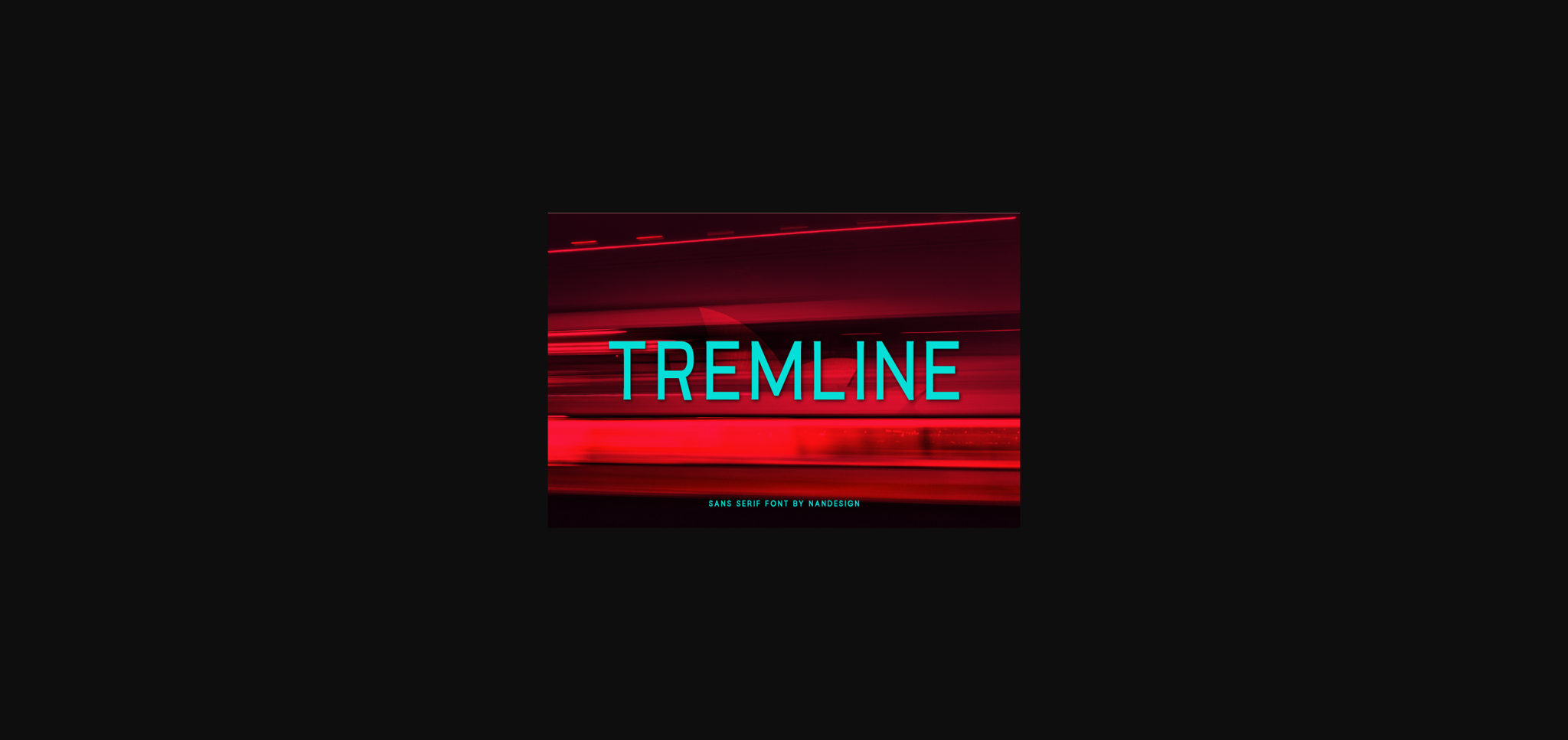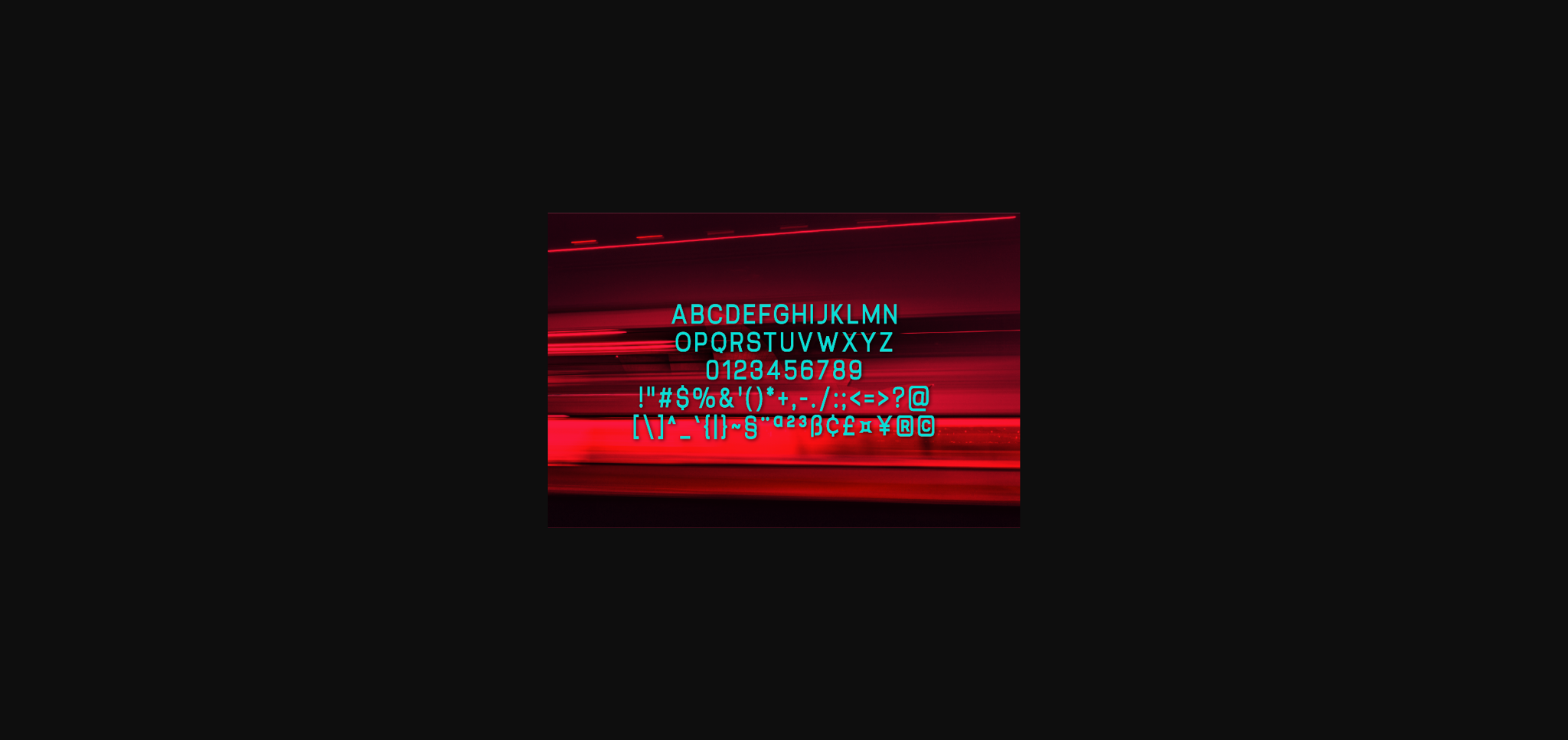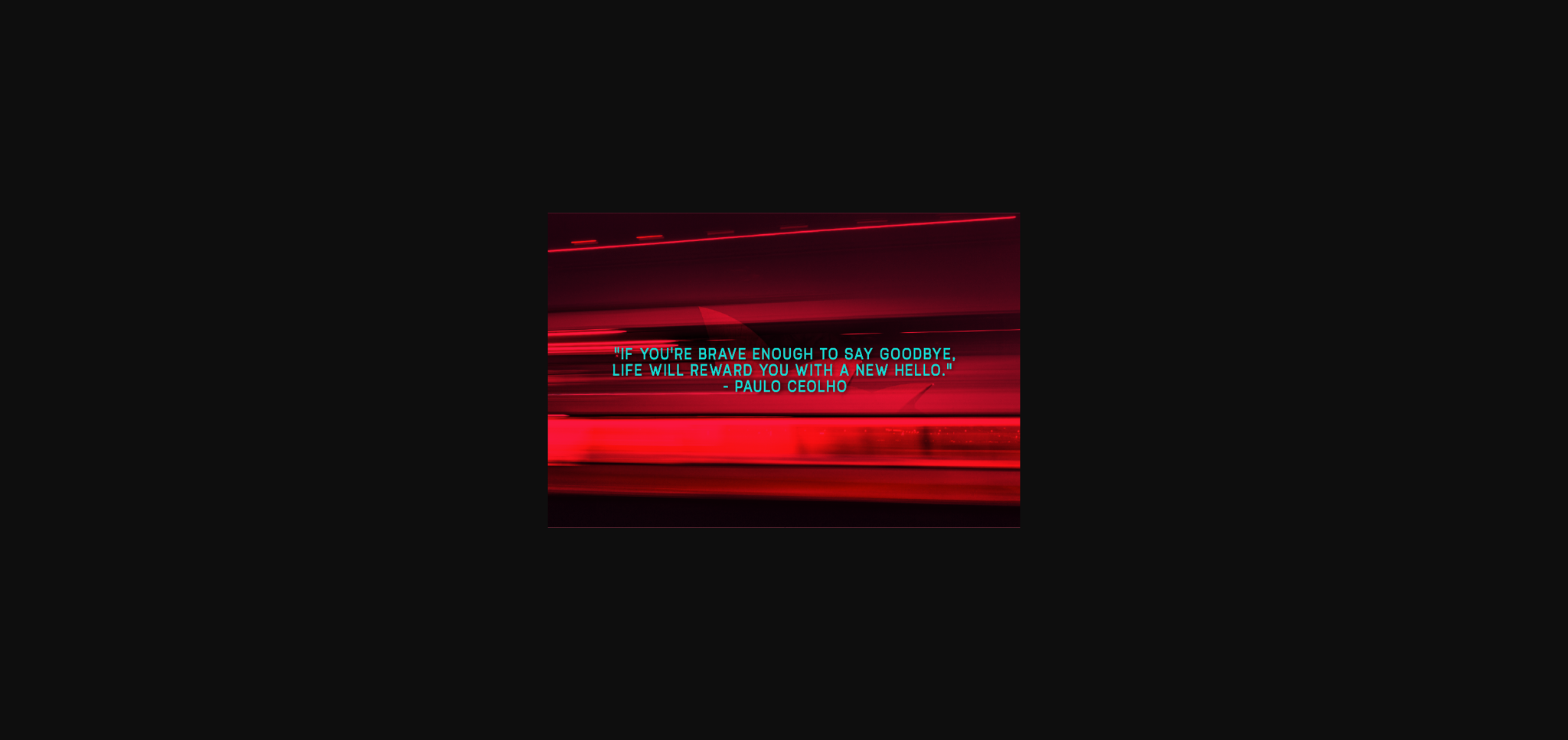
About Tremline Font
Tremline is a neat sans serif font, designed to complement every project you’re currently developing. It has a clean, thin and fresh vibe and it will be a hit for any design that you want to add it to.